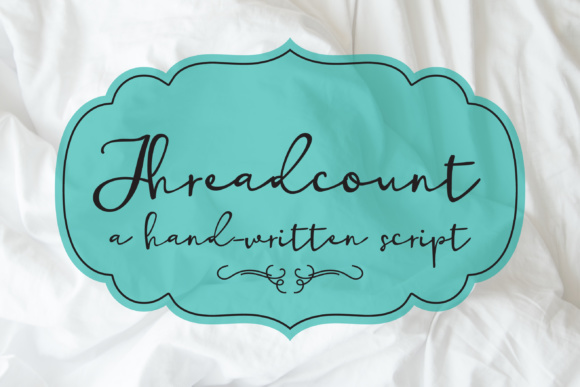
Immerse yourself in the realm of elegance and sophistication with Threadcount Font, a calligraphy masterpiece that will transform your creative endeavors into works of art. Conceived by Illustration Ink, an arbiter of typographic excellence, this script font family features a captivating fusion of loopy uppercase and carefree lowercase characters that harmonize to create a mesmerizing aesthetic. Whether you seek to craft enchanting invitations, add a touch of allure to your social media posts, or infuse your branding with a timeless charm, Threadcount Font is your muse.
Unleash your imagination and adorn your visual creations with the graceful lines and sweeping curves of Threadcount Font. Its sprawling uppercase letters resemble delicate vines, reaching towards the sky with their enchanting loops and flourishes. The lowercase characters, meanwhile, exude an air of effortless charm, dancing across the page with their unassuming yet captivating presence.
With Threadcount Font at your fingertips, you can infuse your designs with a sense of intimacy and authenticity. Its script-like appearance evokes the allure of handwritten notes, creating a personal connection with your audience. Whether you're a graphic designer, marketer, or simply someone who appreciates the finer things in life, Threadcount Font is the key to unlocking a world of creative possibilities.
Elevate your projects to new heights with Threadcount Font, the script font that captures the essence of grace and sophistication. Experience the joy of creating designs that resonate with your audience, leaving an indelible mark on their hearts and minds. Embrace the beauty of written expression and let Threadcount Font guide you on a journey of artistic exploration.